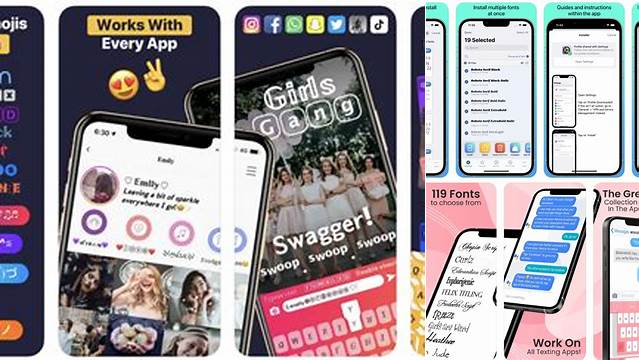
Best Free Font Apps For Instagram: Level Up Your Posts!
Hey guys! Want to make your Instagram posts pop? A cool font can seriously upgrade your game. But who wants to spend a ton of money on fancy apps? Don't worry, I've got you covered! We're diving into the world of free font apps for Instagram that will help you create eye-catching content without breaking the bank. Let's get started!
1. Free Font Apps for Instagram Stories
Instagram Stories are all about being creative and catching attention quickly. Using the right fonts can make your stories stand out from the crowd. A free font app designed specifically for Instagram Stories offers a variety of options to enhance your text, making it more engaging and readable. When selecting an app, look for one that provides a diverse range of fonts, from playful and quirky to elegant and sophisticated. This variety allows you to match the font style to the mood and theme of your story, whether you're promoting a product, sharing a personal anecdote, or simply having fun with your followers. Moreover, a good app should offer customization options such as adjusting font size, color, and adding effects like shadows or outlines. These features enable you to create visually appealing text that complements your images and videos, making your stories more captivating and professional-looking. Also, consider apps that allow you to save your favorite font combinations for future use, streamlining your content creation process. So, whether you're a seasoned Instagrammer or just starting out, using a free font app for your stories is a fantastic way to add personality and flair to your content.
2. Free Font Apps for Instagram Bio
Your Instagram bio is prime real estate – it's often the first thing people see when they visit your profile. Making it stand out with a unique font can leave a lasting impression. There are many free font apps designed to help you customize your bio, allowing you to express your personality or brand identity effectively. When choosing an app for your bio, focus on those that offer a selection of clean, readable fonts that translate well on mobile devices. While it's tempting to go for something overly decorative, readability is key to ensuring visitors understand your bio at a glance. Consider using a bold or slightly stylized font for your name or key information to draw attention to it. Many apps also provide options to add symbols or special characters to your bio, further enhancing its visual appeal. Keep in mind that Instagram has limitations on the types of fonts it supports, so ensure the app you choose offers fonts that are compatible. By using a free font app to create a distinctive bio, you can make a memorable first impression and attract more followers who resonate with your style or brand.
3. Font Apps with a Wide Variety of Free Fonts
The more fonts you have at your disposal, the more creative you can be! A font app boasting a wide variety of free fonts is a goldmine for Instagram users looking to add diversity to their posts. These apps typically offer a broad spectrum of styles, from classic serifs and sans-serifs to modern scripts and display fonts. When exploring such an app, pay attention to the organization and filtering options. A well-structured app will allow you to easily browse fonts by category (e.g., handwritten, vintage, minimalist) or search for specific styles. Look for apps that regularly update their font library, ensuring you always have access to the latest trends and freshest designs. Customization features, such as adjusting font size, color, and spacing, are also crucial for tailoring fonts to your specific needs. A fantastic benefit of these apps is the ability to experiment with different font combinations to find the perfect match for your visual content. By leveraging a font app with a wide array of free fonts, you can consistently refresh your Instagram aesthetic and keep your audience engaged with visually stunning content.
4. Best Font Apps for Instagram Captions
Captions are your chance to add context and personality to your photos. A well-chosen font can enhance the impact of your words. Selecting the right font app for Instagram captions involves considering readability, style, and the overall tone of your post. You'll want fonts that are clear and easy to read on smaller screens, ensuring your message is effectively communicated. Look for apps that offer a range of font styles, from professional and understated to playful and expressive, allowing you to match the font to the mood of your caption. Customization options, such as adjusting font size, color, and adding text effects, are also valuable for highlighting key phrases or creating visual interest. Many apps also include features that allow you to save your favorite font combinations for future use, streamlining your caption-writing process. Using a font app to enhance your Instagram captions can elevate your storytelling and create a more engaging experience for your followers. By carefully selecting fonts that complement your visuals, you can craft captions that are both informative and visually appealing, leaving a lasting impression on your audience.
6. Font Keyboard Apps for Instagram
Font keyboard apps are super convenient! They let you type in stylish fonts directly within Instagram and other apps. A font keyboard app for Instagram offers a seamless way to type in stylish fonts directly within the app and other social media platforms. Once installed, the keyboard replaces your default keyboard, allowing you to switch between different fonts with ease. This eliminates the need to copy and paste text from a separate font generator app. When choosing a font keyboard app, prioritize those with a wide selection of fonts, intuitive navigation, and customization options. Look for apps that allow you to adjust font size, color, and add text effects directly from the keyboard. Also, consider apps that offer support for multiple languages and symbols. Keep in mind that some font keyboard apps may collect typing data, so it's essential to choose a reputable app with a strong privacy policy. By using a font keyboard app, you can effortlessly add flair to your Instagram captions, comments, and messages, enhancing your overall communication and engagement. It's a simple yet effective way to inject personality into your text and stand out from the crowd.
7. Font Generator Apps for Instagram
Font generator apps are great for creating unique text styles. Just type your text, choose a font, and copy-paste it into Instagram. A font generator app for Instagram allows you to create unique text styles that can be easily copied and pasted into your captions, bios, and comments. These apps typically offer a wide variety of fonts, ranging from classic to quirky, allowing you to express your personality and style. To use a font generator app, simply type your text into the app, browse through the available fonts, and select the one you like. The app will then generate the text in the chosen font, which you can copy and paste into Instagram. Some font generator apps also offer customization options, such as adjusting font size, color, and adding text effects. When choosing a font generator app, consider factors such as the variety of fonts offered, ease of use, and the ability to save your favorite font combinations. While font generator apps are convenient for creating stylish text, keep in mind that some fonts may not be supported by all devices or platforms. By using a font generator app, you can easily add visual interest to your Instagram content and make it stand out from the crowd.
8. Font Editor Apps for Instagram
Font editor apps give you more control over your text. You can customize font size, color, spacing, and more. A font editor app for Instagram provides you with greater control over your text, allowing you to customize font size, color, spacing, and other attributes. These apps typically offer a range of editing tools that enable you to fine-tune your text to perfection. With a font editor app, you can experiment with different font combinations, adjust line height and letter spacing, and add effects such as shadows or outlines. This level of customization allows you to create text that perfectly complements your visuals and conveys your message effectively. When choosing a font editor app, look for one that offers a user-friendly interface and a wide range of editing tools. Consider apps that allow you to preview your text in real-time and easily undo changes. Also, check if the app supports exporting your edited text in a format that is compatible with Instagram. By using a font editor app, you can elevate your Instagram content and create visually stunning text that captures attention and engages your audience.
9. Stylish Font Apps for Instagram
Want to add some flair to your posts? Stylish font apps offer a range of decorative and eye-catching fonts. A stylish font app for Instagram offers a range of decorative and eye-catching fonts that can add flair to your posts. These apps typically feature a collection of unique and trendy fonts that are designed to grab attention and make your content stand out. With a stylish font app, you can transform your ordinary text into something visually appealing and memorable. When choosing a stylish font app, consider factors such as the variety of fonts offered, the quality of the designs, and the ease of use. Look for apps that regularly update their font library to provide you with the latest trends and freshest styles. Also, check if the app offers customization options, such as adjusting font size, color, and adding text effects. By using a stylish font app, you can inject personality and creativity into your Instagram content and create a visually engaging experience for your followers. So, if you're looking to add some pizzazz to your posts, a stylish font app is the way to go.
30. Troubleshooting Common Issues with Free Font Apps on Instagram
Sometimes things don't go as planned. Here's how to fix common problems with font apps. Sometimes things don't go as planned, and you may encounter issues when using free font apps on Instagram. Here's how to troubleshoot some common problems: If your text doesn't appear in the chosen font on Instagram, make sure that the font is compatible with Instagram. Some fonts may not be supported by all devices or platforms. If your text appears distorted or pixelated, try increasing the font size or using a different font. If you're having trouble copying and pasting text from the font app to Instagram, make sure that you're using the correct copy and paste commands on your device. If the font app is crashing or freezing, try restarting the app or your device. If you're still experiencing issues, try contacting the app developer for support. By troubleshooting common issues with free font apps on Instagram, you can overcome technical challenges and ensure that you're able to use these apps effectively to enhance your content.